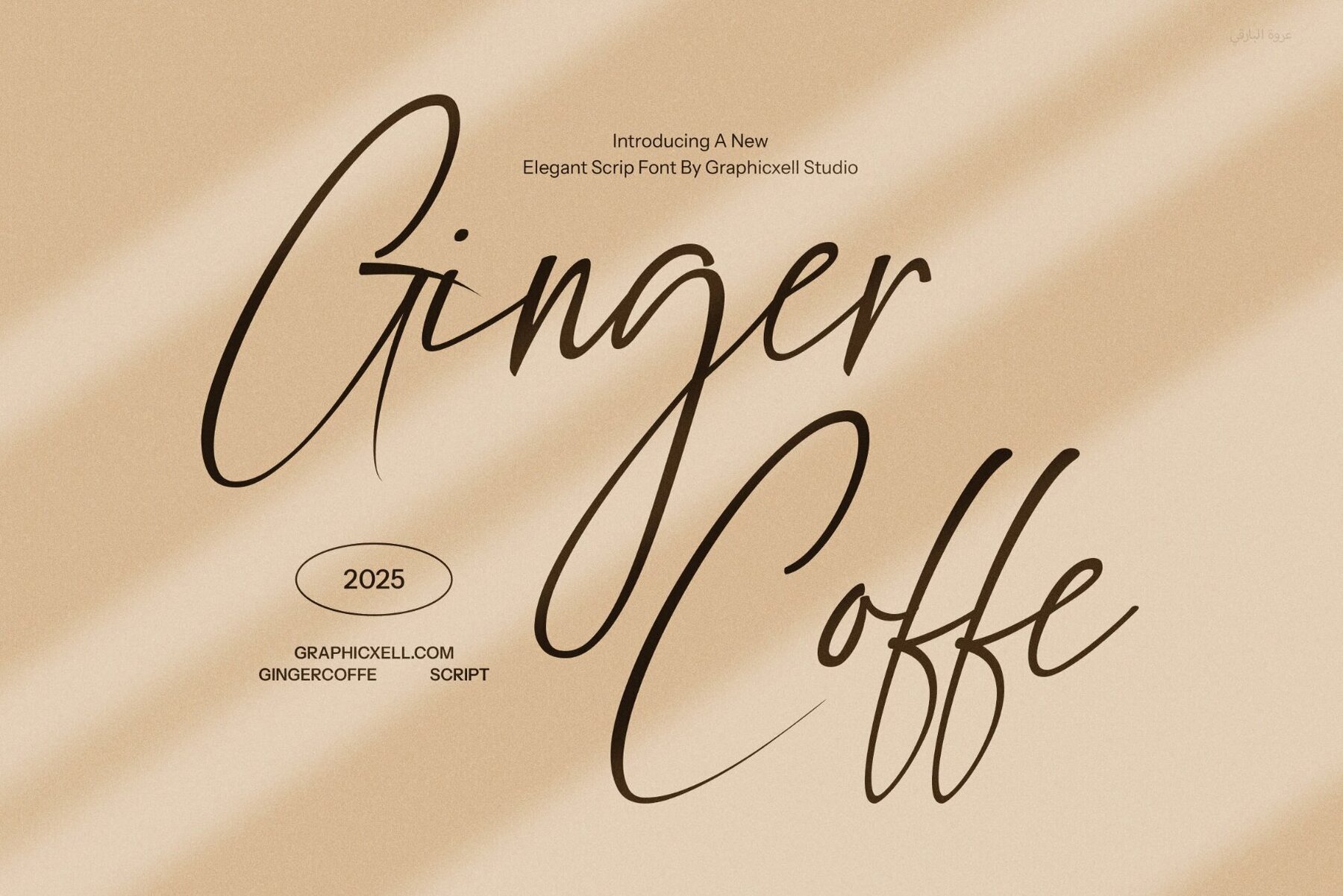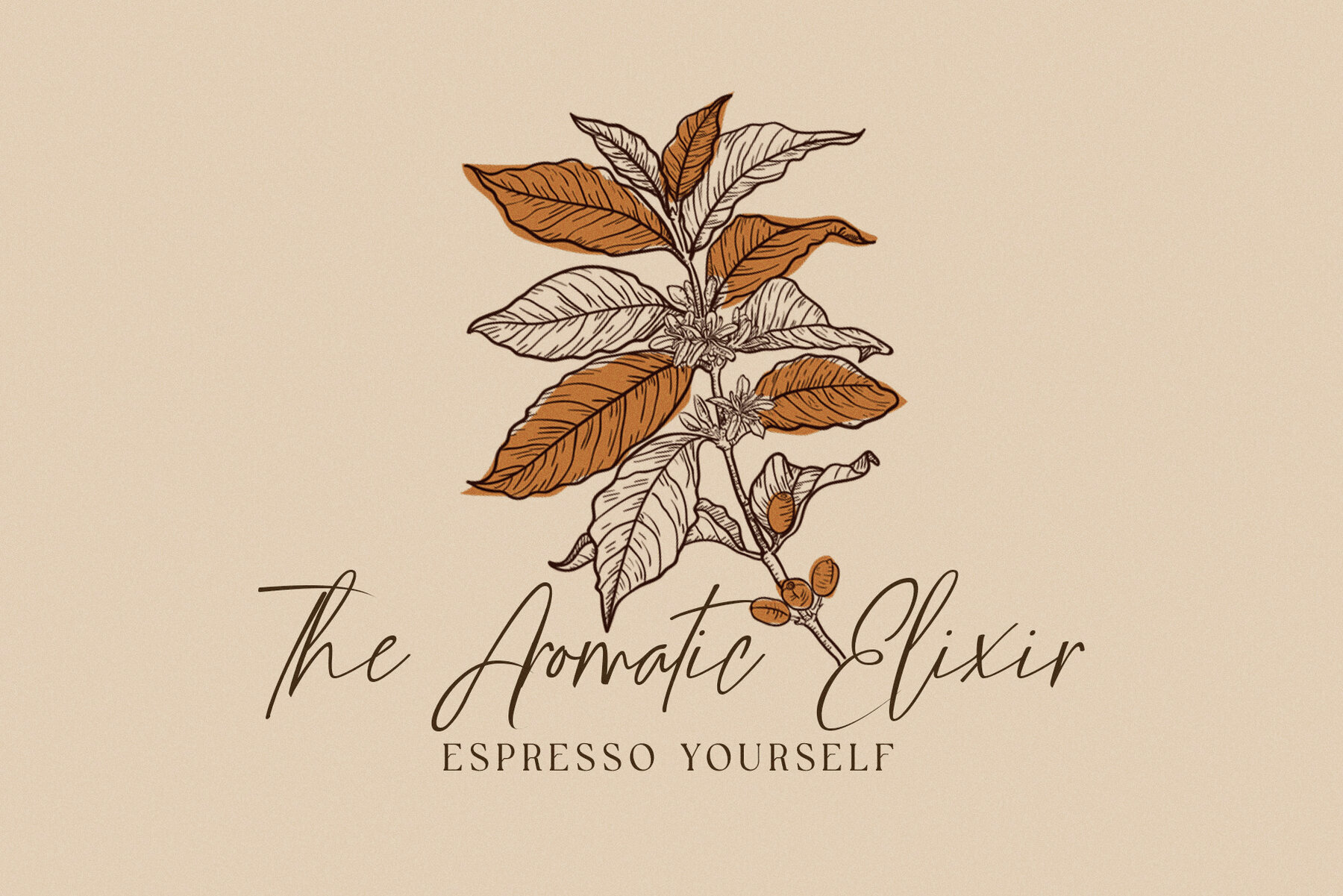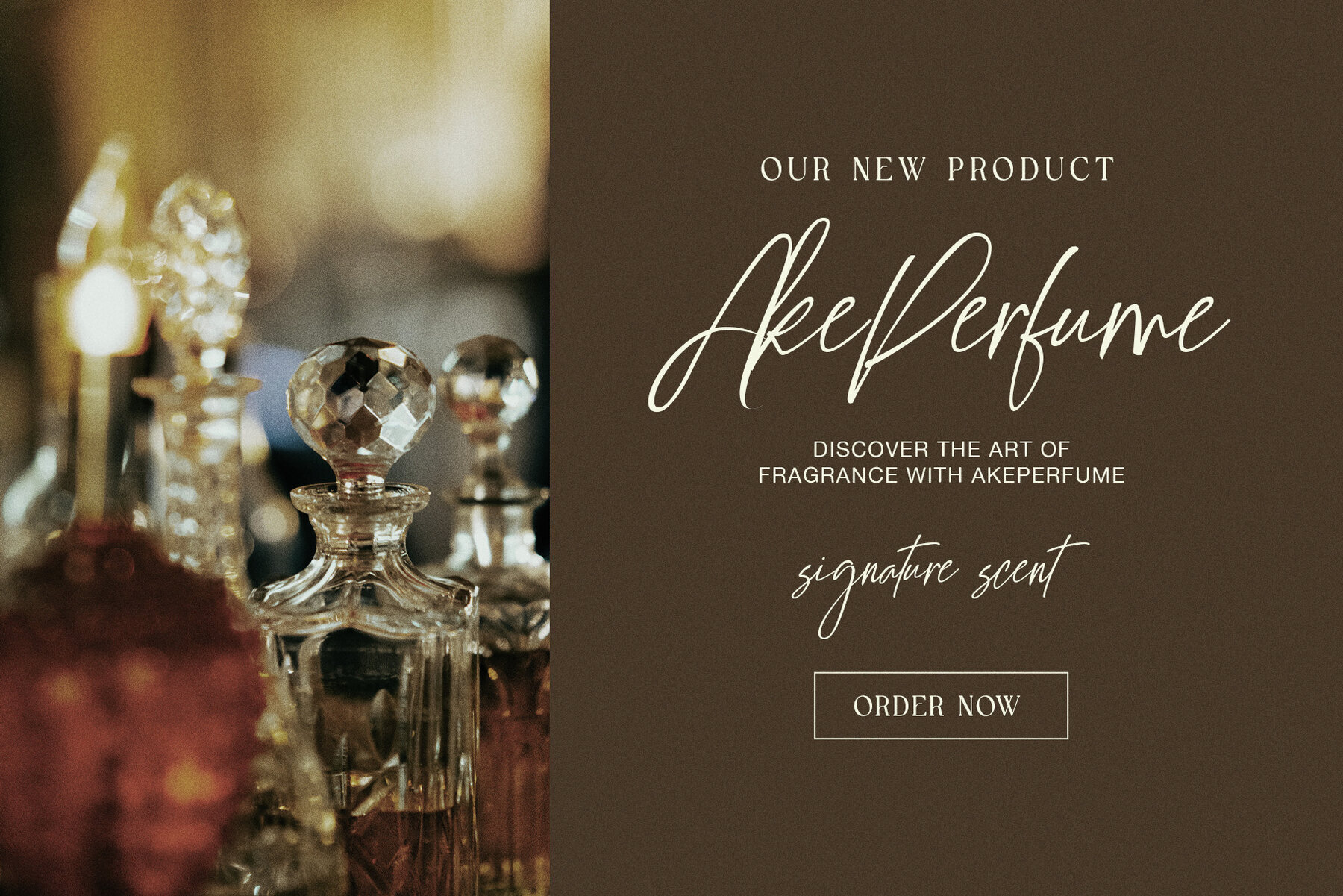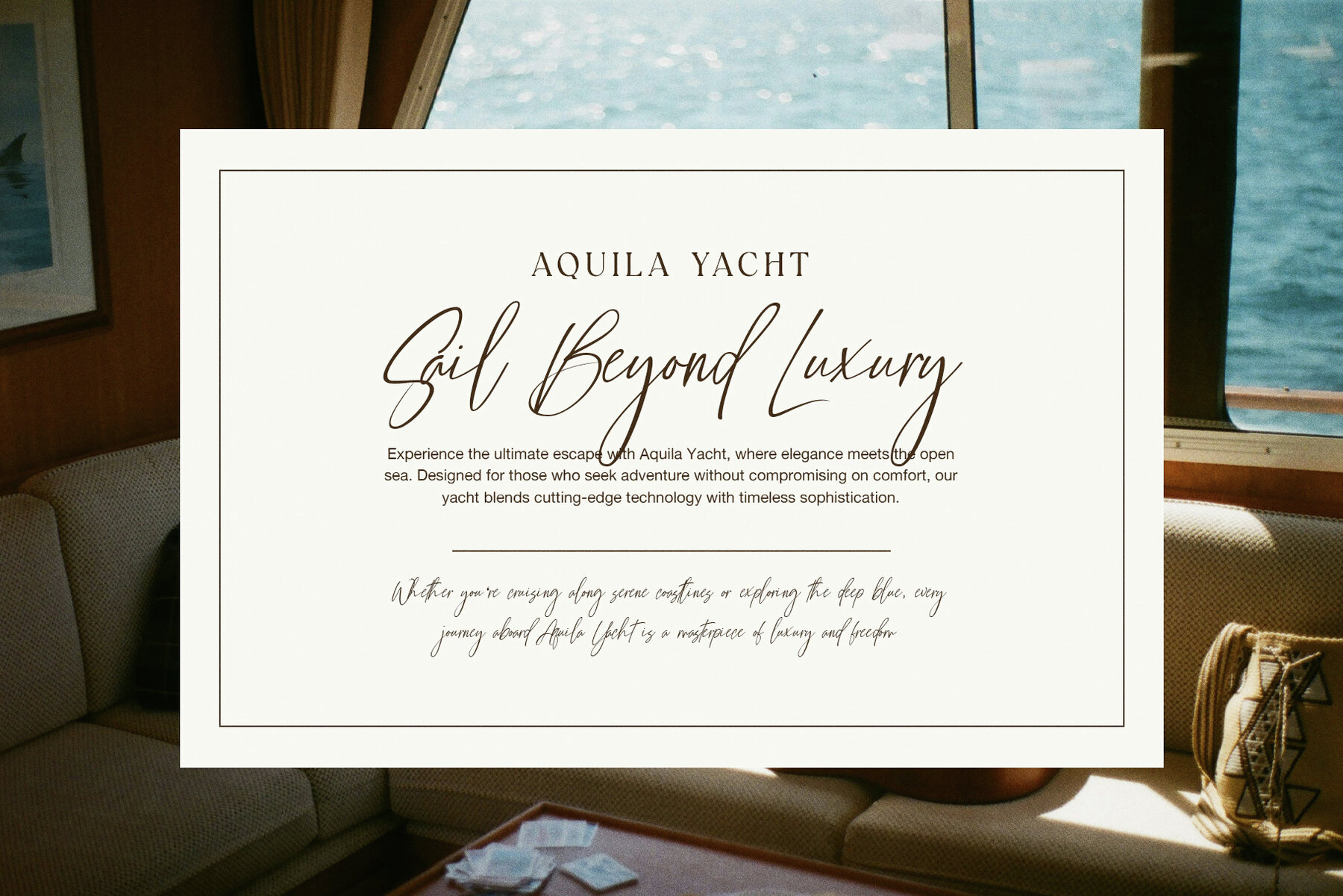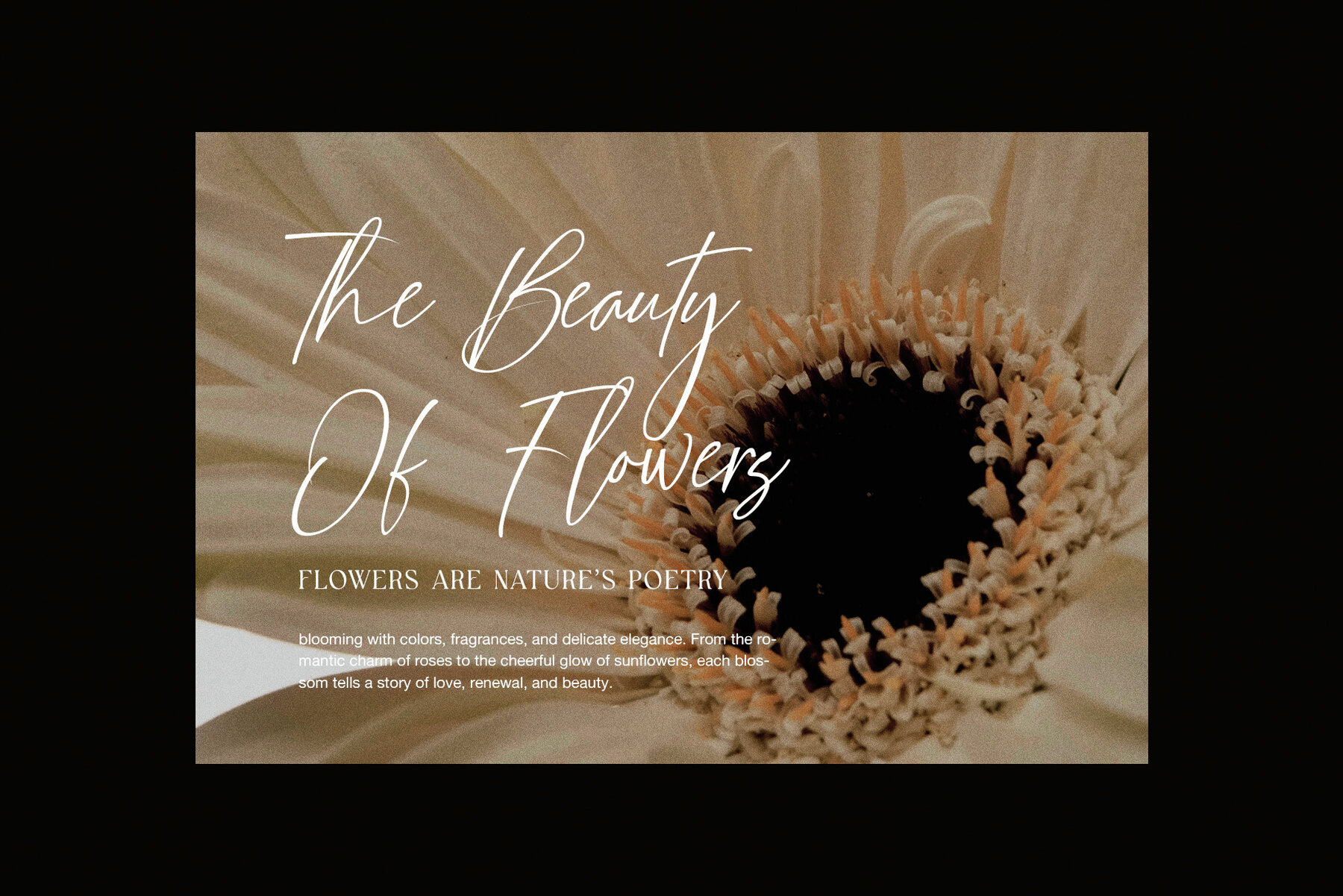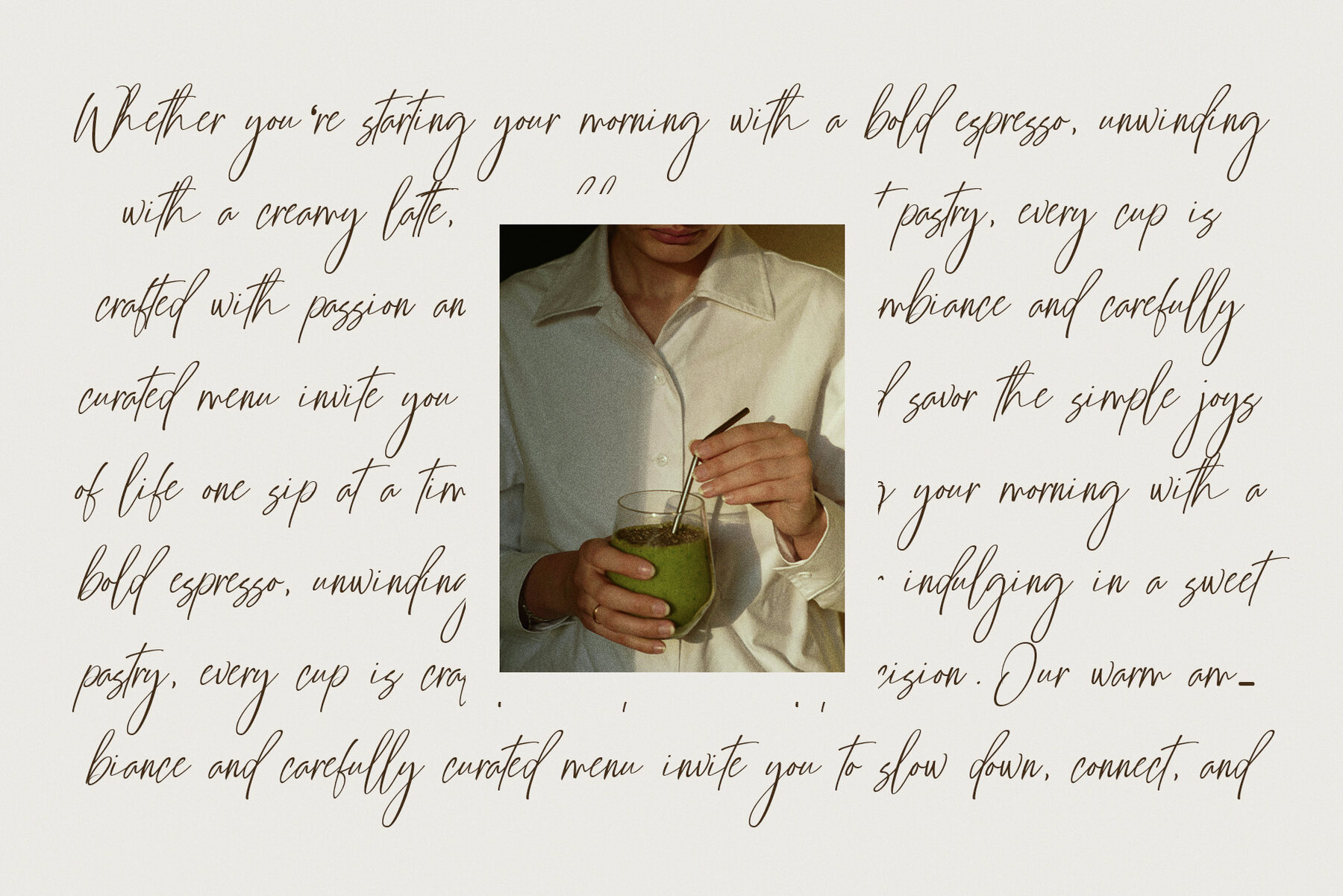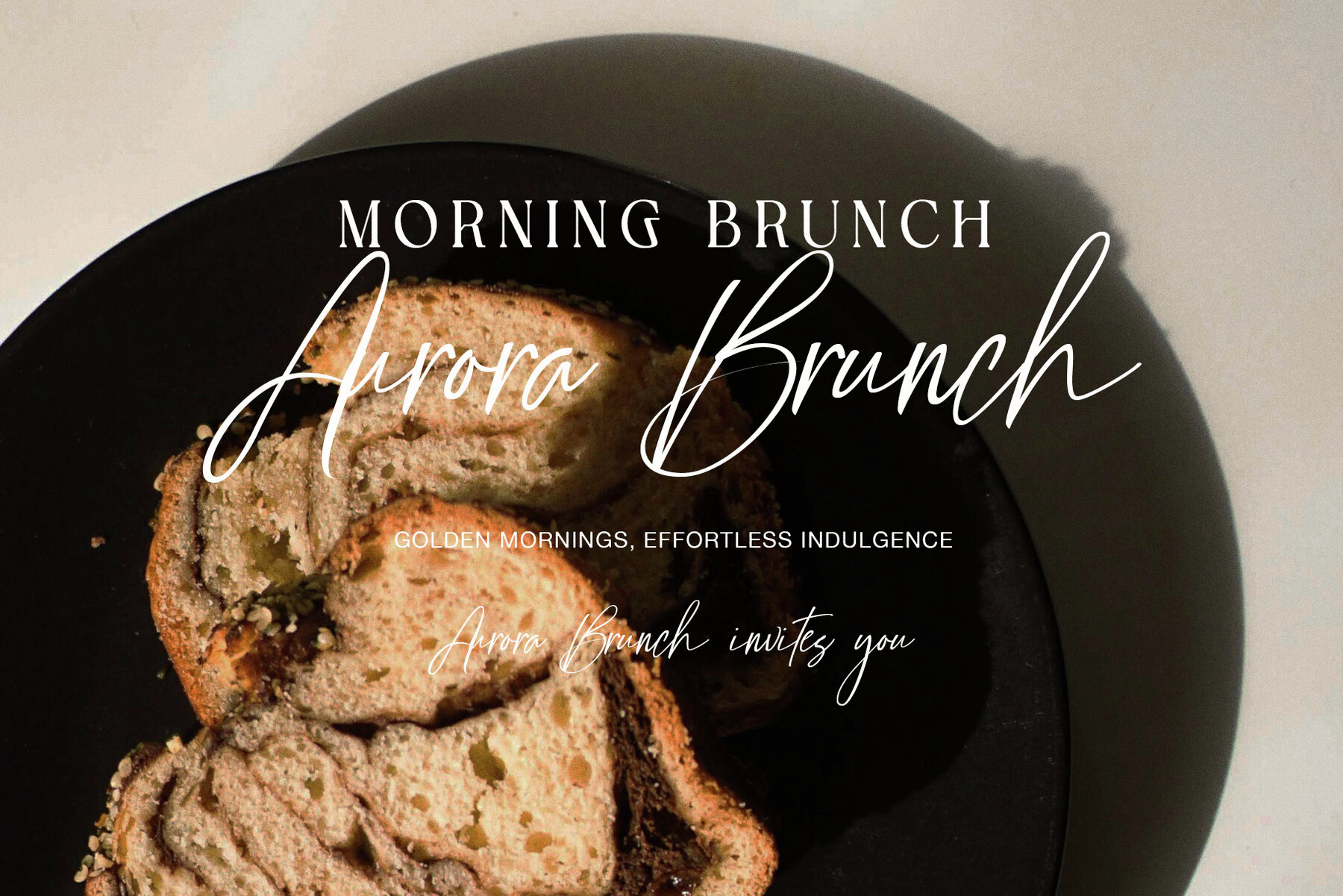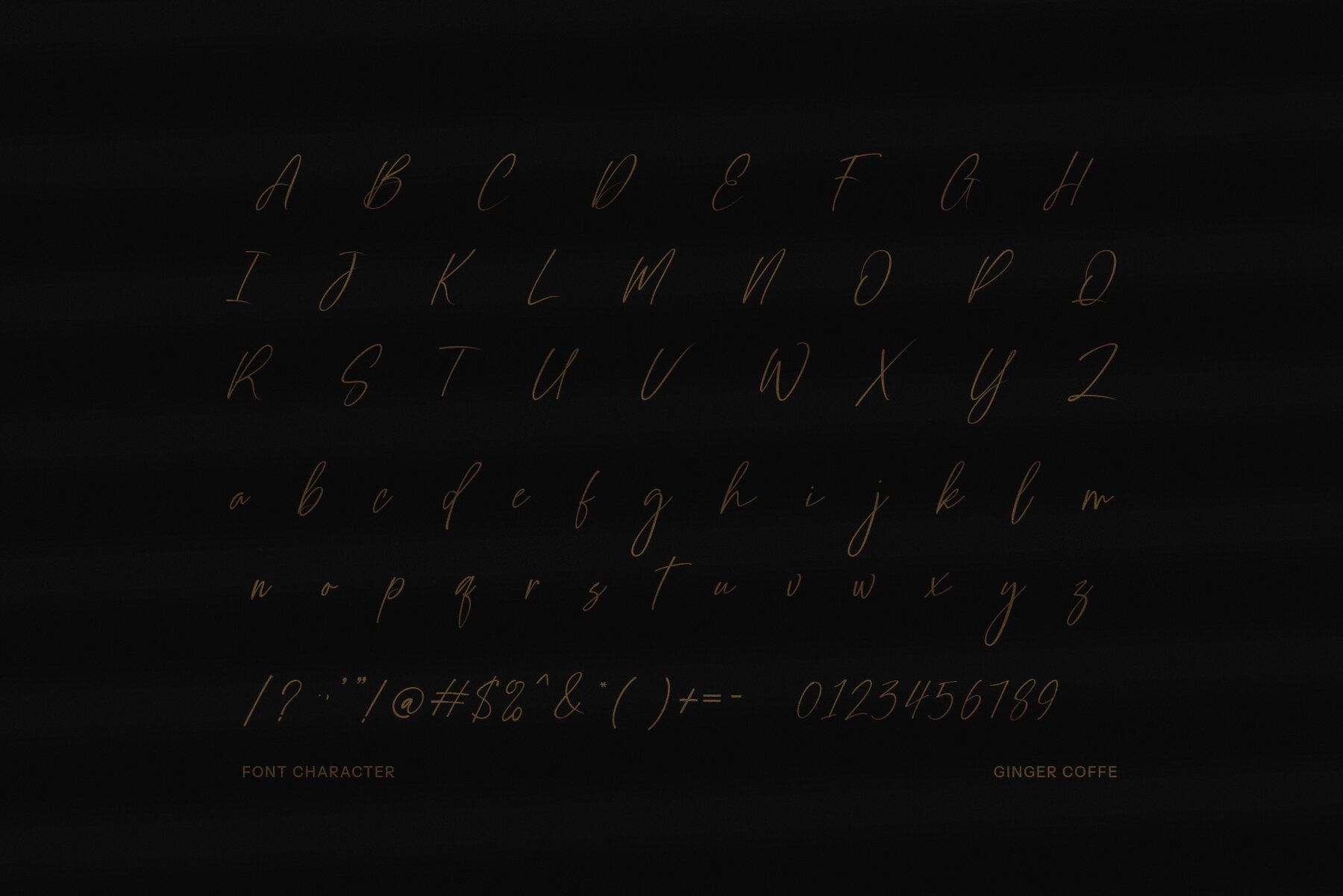
Ginger Coffe Font
Ginger coffe Regular
Ginger Coffe is a beautifully refined script typeface, radiating charm, warmth, and understated elegance. Its smooth and flowing style, infused with modern sophistication, makes it an ideal choice for creating handwritten signatures, upscale branding, and stylish visual identities. The font's graceful curves and rich variety of calligraphic alternates add a personalized, handcrafted touch to each letter. Perfect for wedding invitations, logo designs, business cards, or magazine covers, Ginger Coffe provides a polished, elegant finish that captivates in both digital and print formats. This naturally free-flowing script offers a wide range of stylistic alternates and ligatures, granting you endless creative possibilities and control over your design aesthetic. Ideal for luxury branding, fashion blogs, photography watermarks, album artwork, and social media graphics, Ginger Coffe is not only versatile but also compatible with tools like Canva, Adobe Illustrator, and Photoshop. Whether designing romantic event stationery or modern website headers, let Ginger Coffe Signature Font infuse every project with sophistication and personality. Choose Ginger Coffe to differentiate your designs with style, elegance, and heart.Ginger Coffe Signature Font